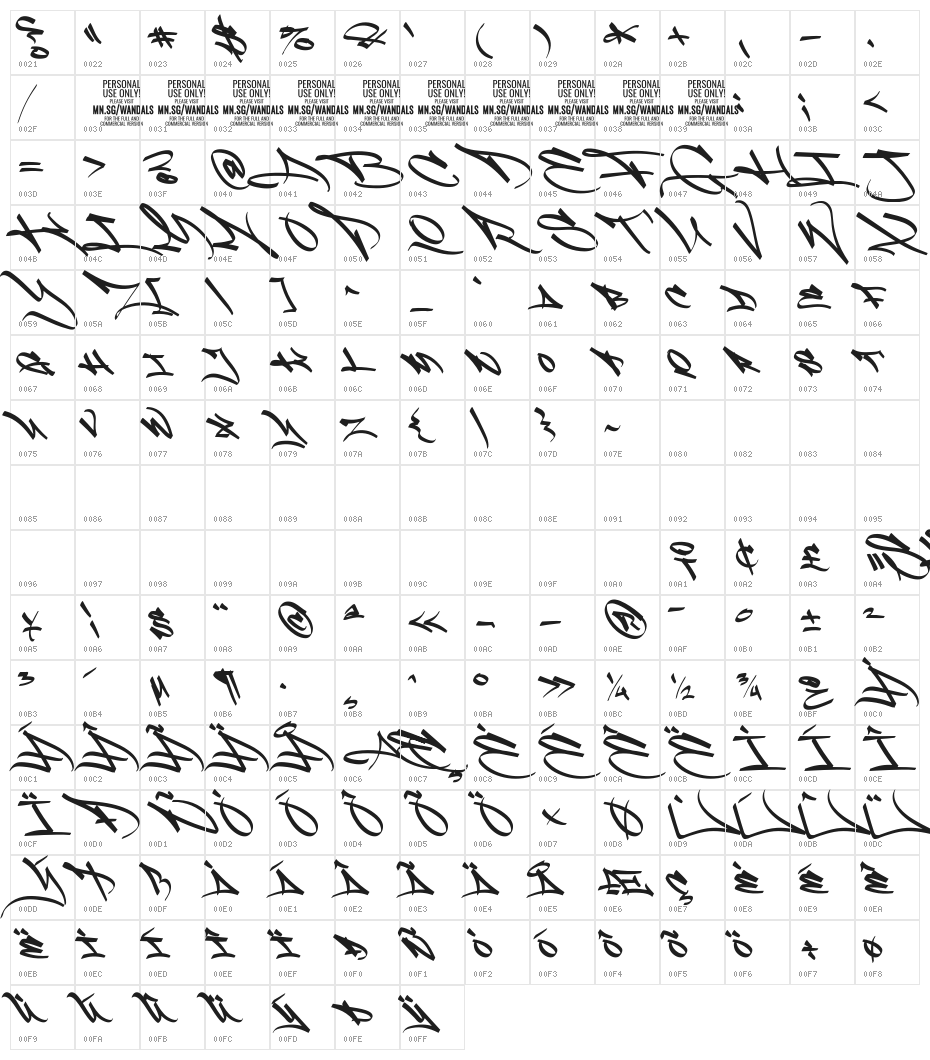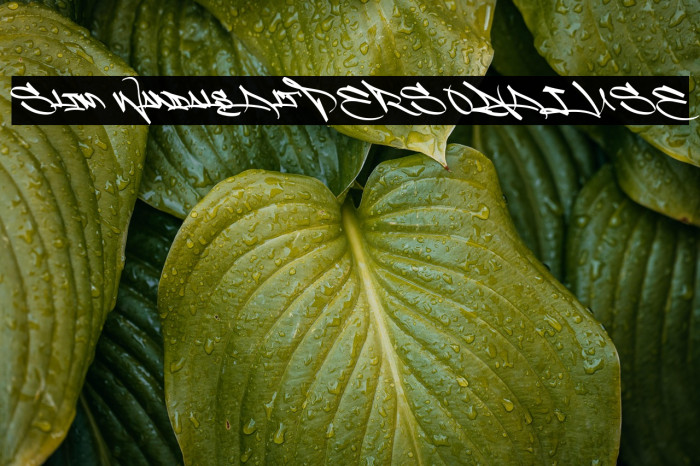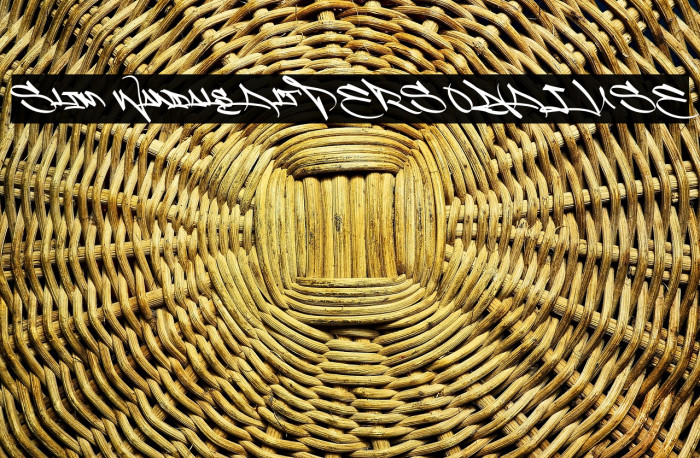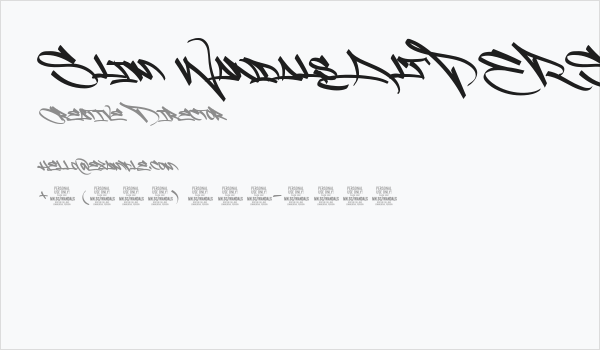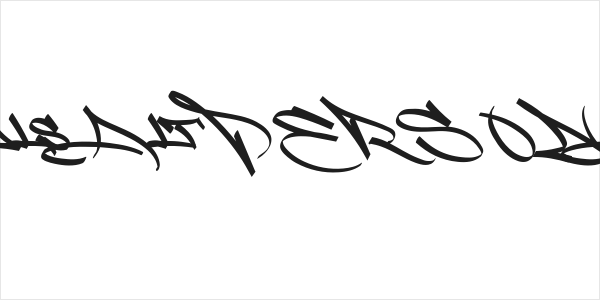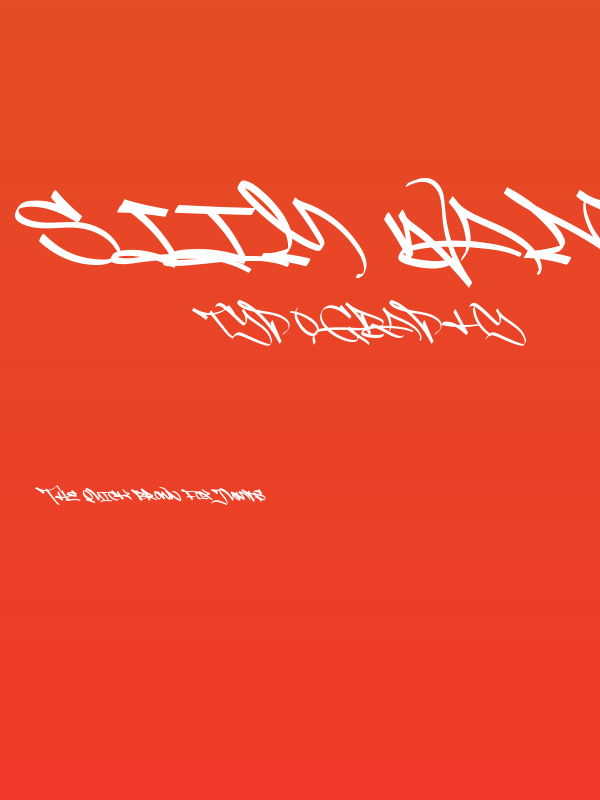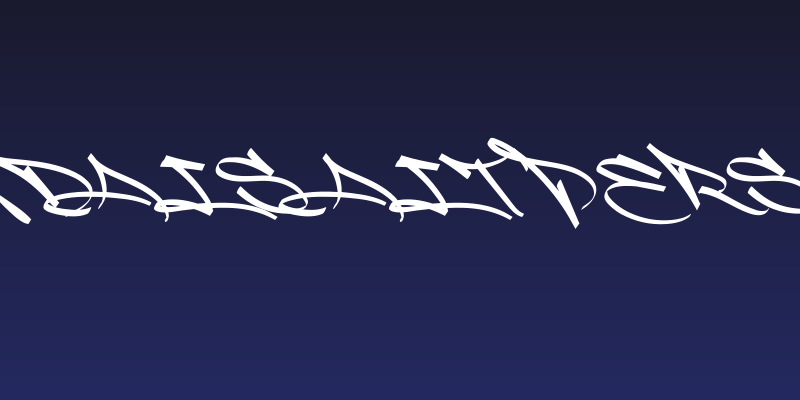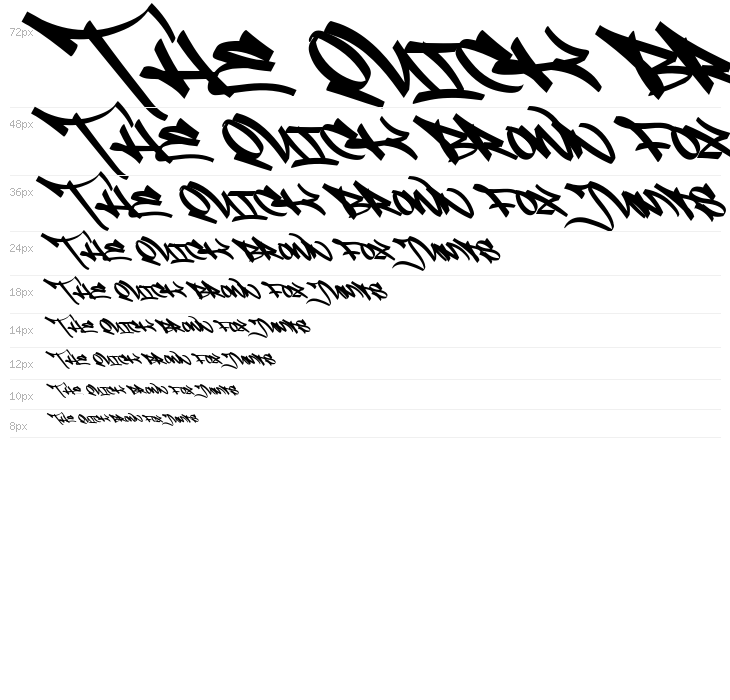
Slim Wandals Alt PERSONAL USE Font
Slim Wandals Alt PERSONAL USE Description
This font features a bold, graffiti-inspired style with dynamic, flowing lines and sharp angles. The characters are highly stylized, with exaggerated curves and strokes that give it an energetic and rebellious feel. The uppercase and lowercase letters maintain a consistent aesthetic, creating a cohesive look across the alphabet. The numbers and special characters are equally expressive, adding to the font's overall urban and edgy vibe. This font is ideal for projects that require a strong visual impact and a sense of movement.
| Overall Style | Urban, Edgy, Graffiti |
| Use Case | Logos, Posters, Album Covers |
| Proposed Projects | Ideal for street art designs, urban-themed posters, music album covers, and edgy branding projects. |